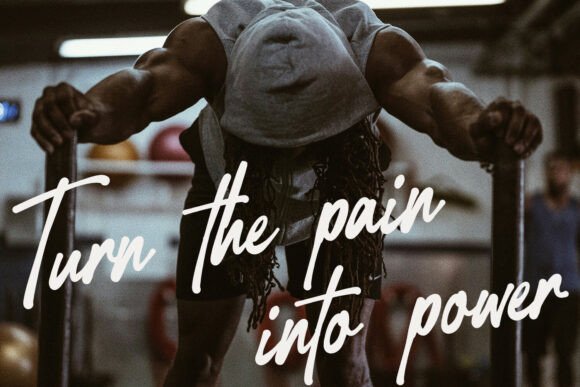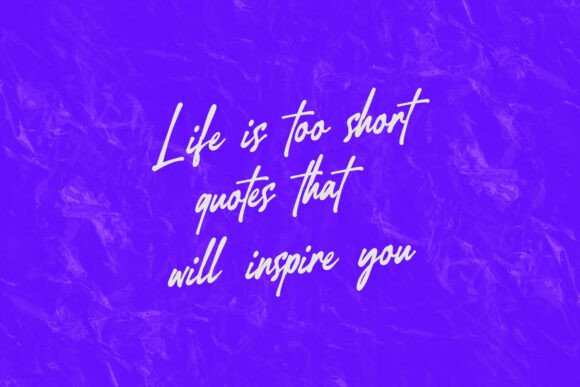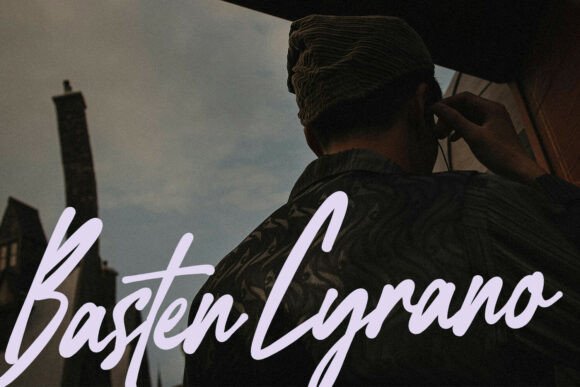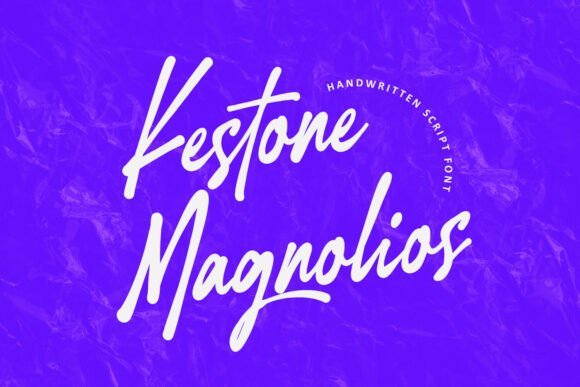
Introduction to Kestone Magnolios Font
Capture attention instantly with Kestone Magnolios, a dynamic handwritten script font that injects a burst of raw energy and genuine style into any design.
Inspired by authentic, fast-paced handwriting, Kestone Magnolios features strong strokes, natural connections, and a confident style It’s designed to be effortlessly cool, highly readable, and undeniably impactful.
Kestone Magnolios Font offers exceptional quality and versatility, making it a valuable addition to your design toolkit. Whether you’re creating for personal projects or commercial use, Kestone Magnolios Font delivers professional results.